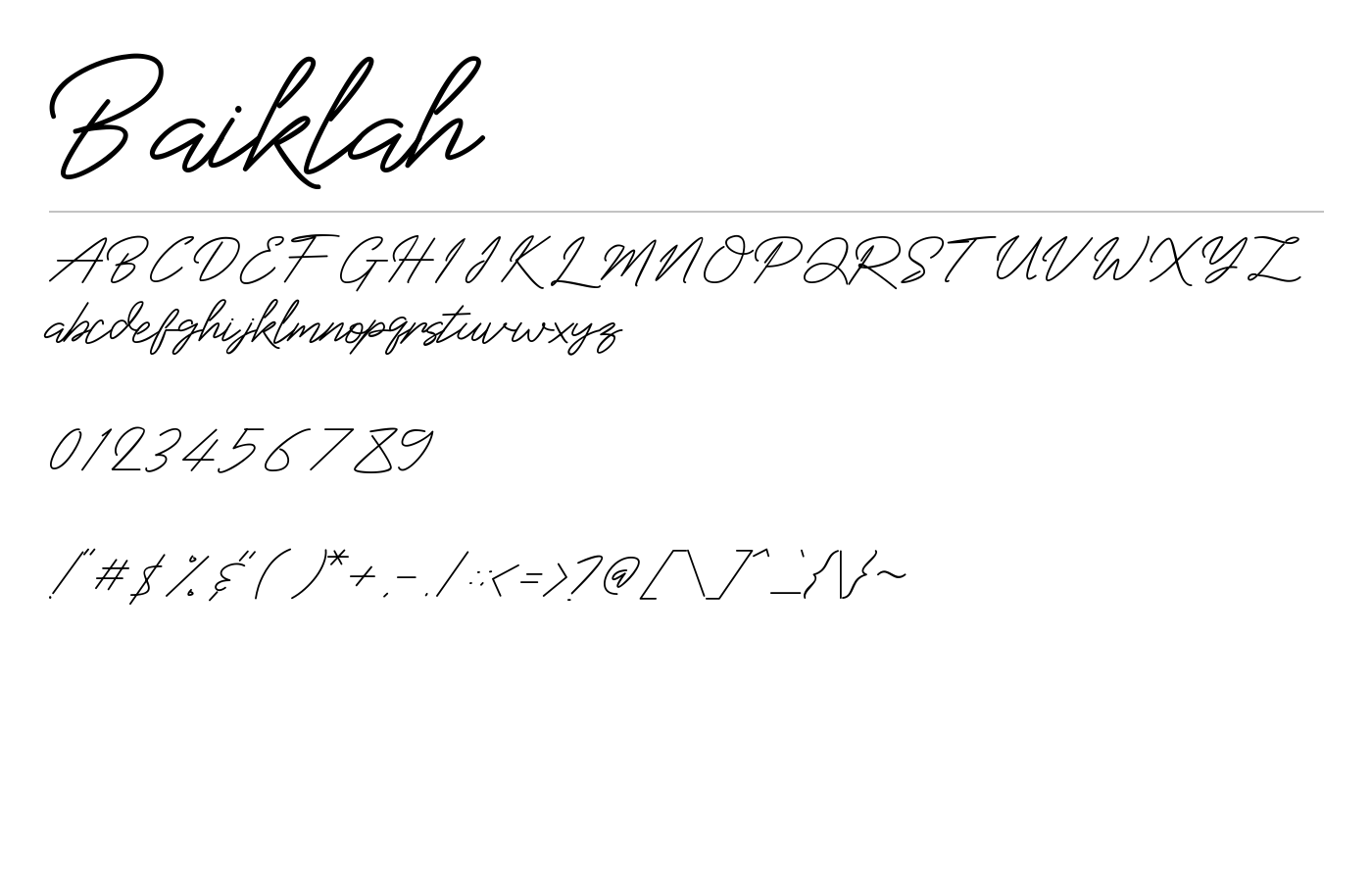
Baiklah Font is a delicate and elegant script typeface with a handwritten, flowing style that captures a graceful and personal touch. Its thin, smooth strokes and slightly slanted letterforms create a light, airy feel perfect for invitations, branding, and any project seeking a refined yet approachable aesthetic. This font works beautifully in designs that benefit from a sophisticated, yet informal handwritten look.
Baiklah Font
About Baiklah Font